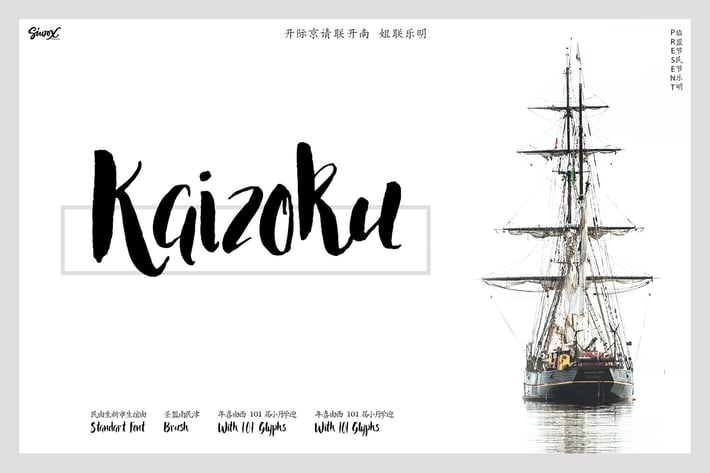
Kaizoku Brush Font + Webfonts
Introducing the KAIZOKU BRUSH FONT
Brush fonts with standard glyphs, do not require any special program to access any glyphs.